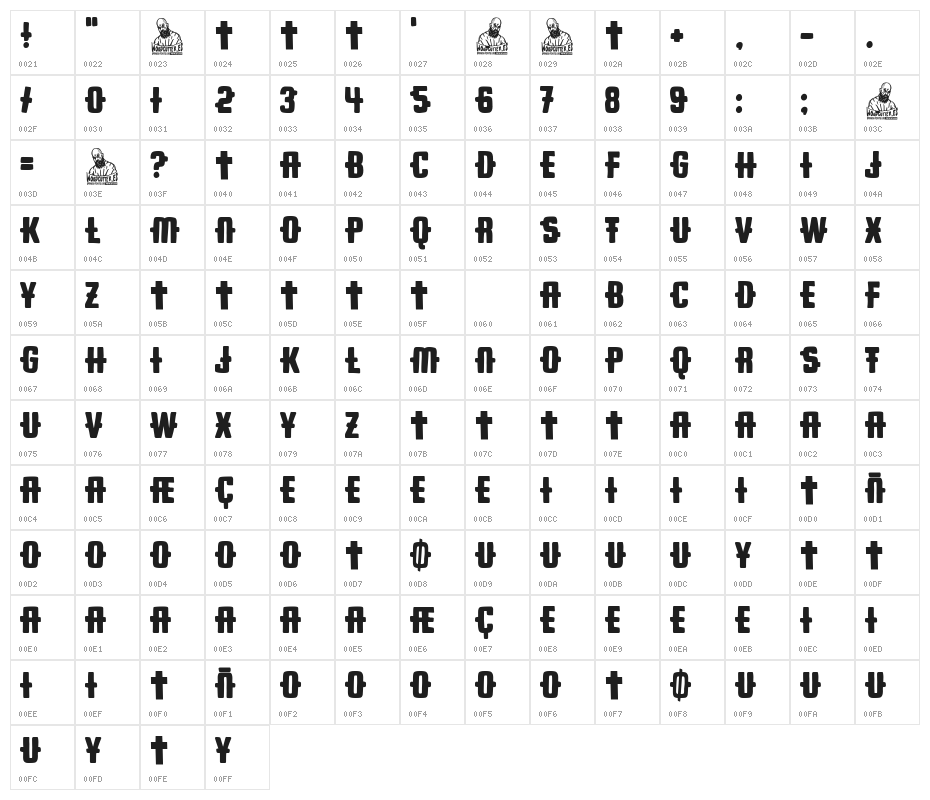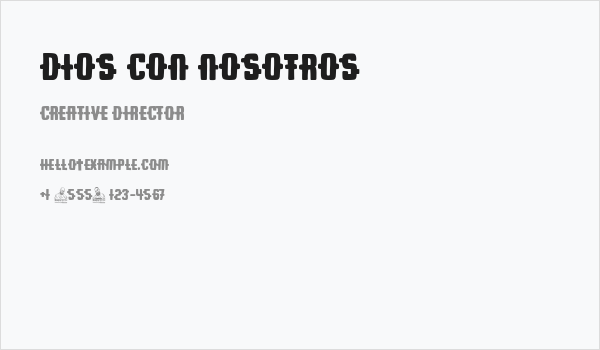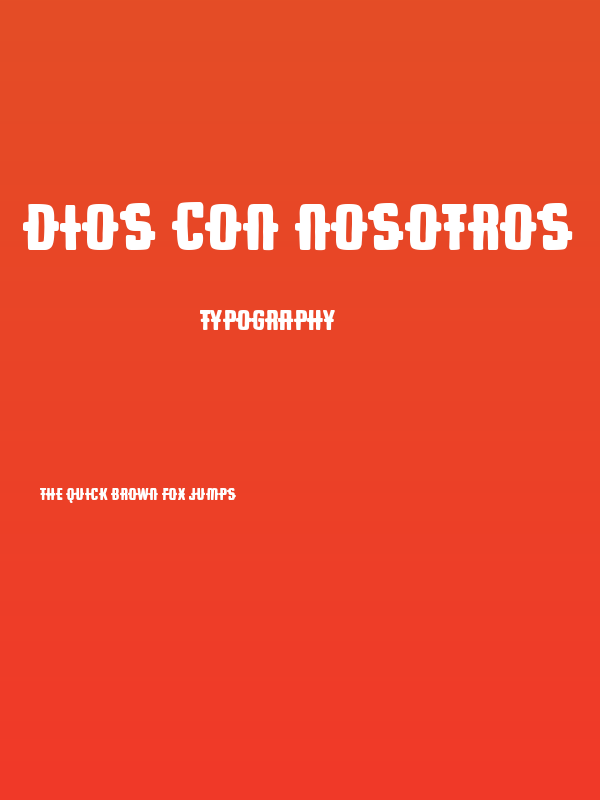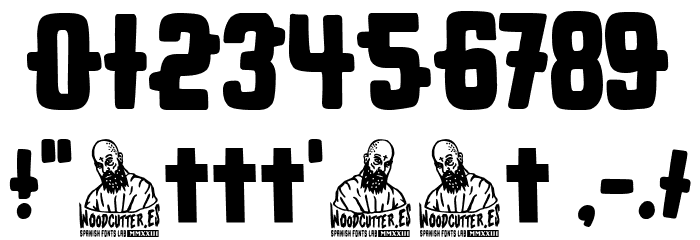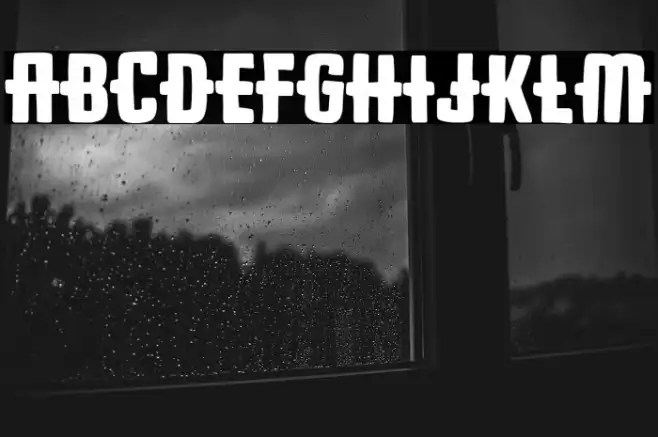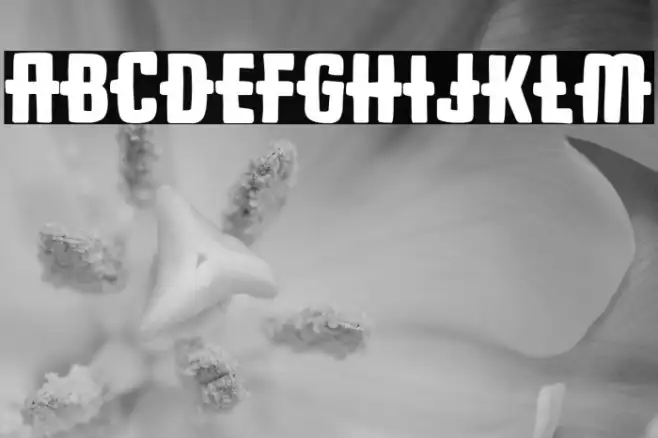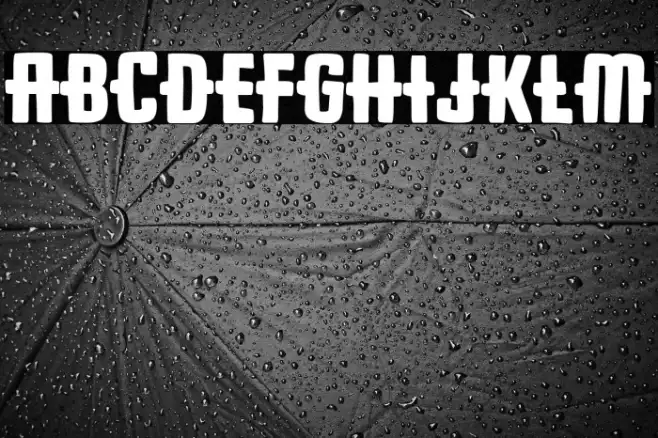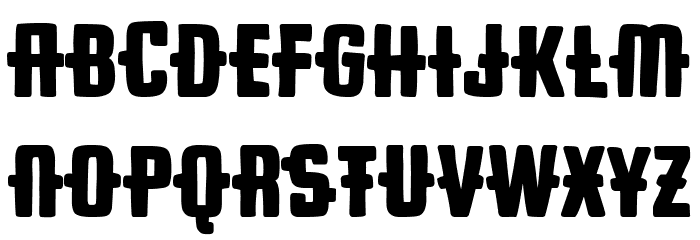
Dios con nosotros Font
Dios con nosotros Description
This font features a bold and striking design with thick, uniform strokes and a unique, playful style. Each character is crafted with a consistent width, creating a cohesive and balanced appearance. The letters have a slightly rounded finish, adding a touch of softness to the otherwise robust structure. The font includes both uppercase and lowercase letters, numerals, and a selection of special characters, making it versatile for various design needs. Its bold presence makes it ideal for attention-grabbing headlines or logos.
| Overall Style | Playful, Modern |
| Proposed Projects | Ideal for posters, logos, branding, and any project requiring a bold, eye-catching typeface. |